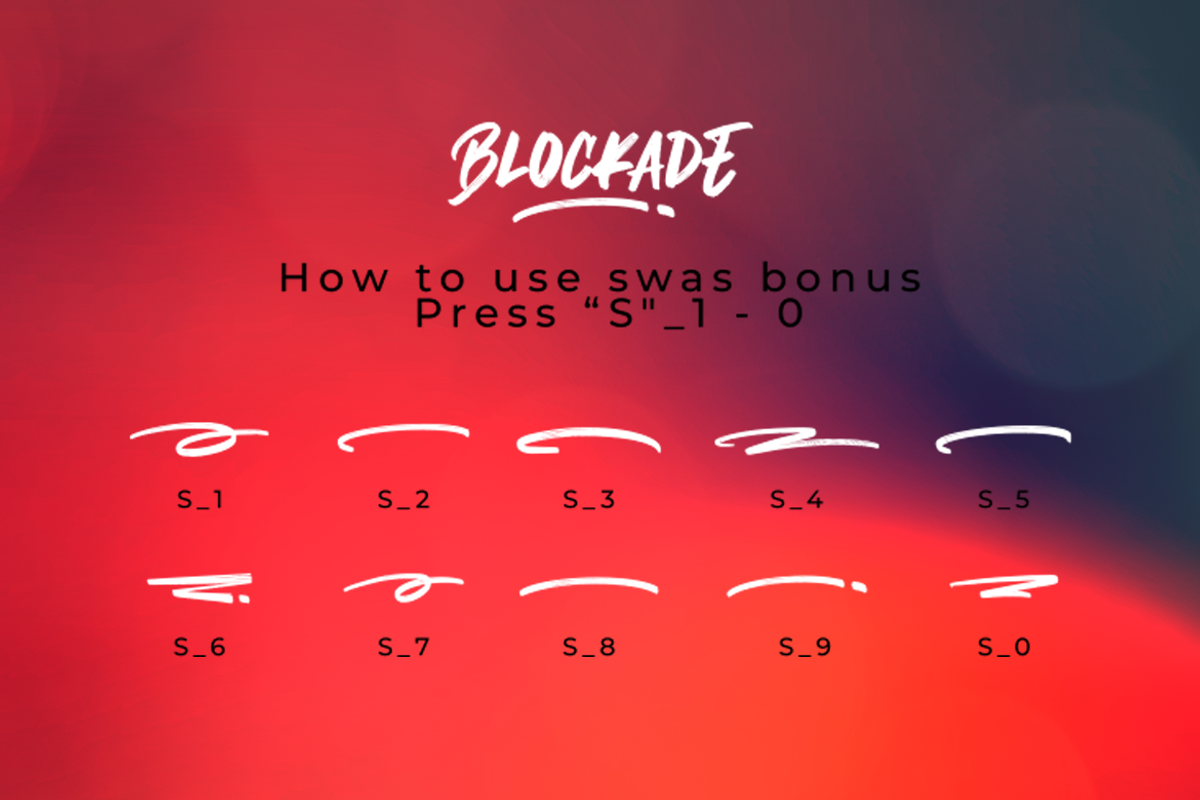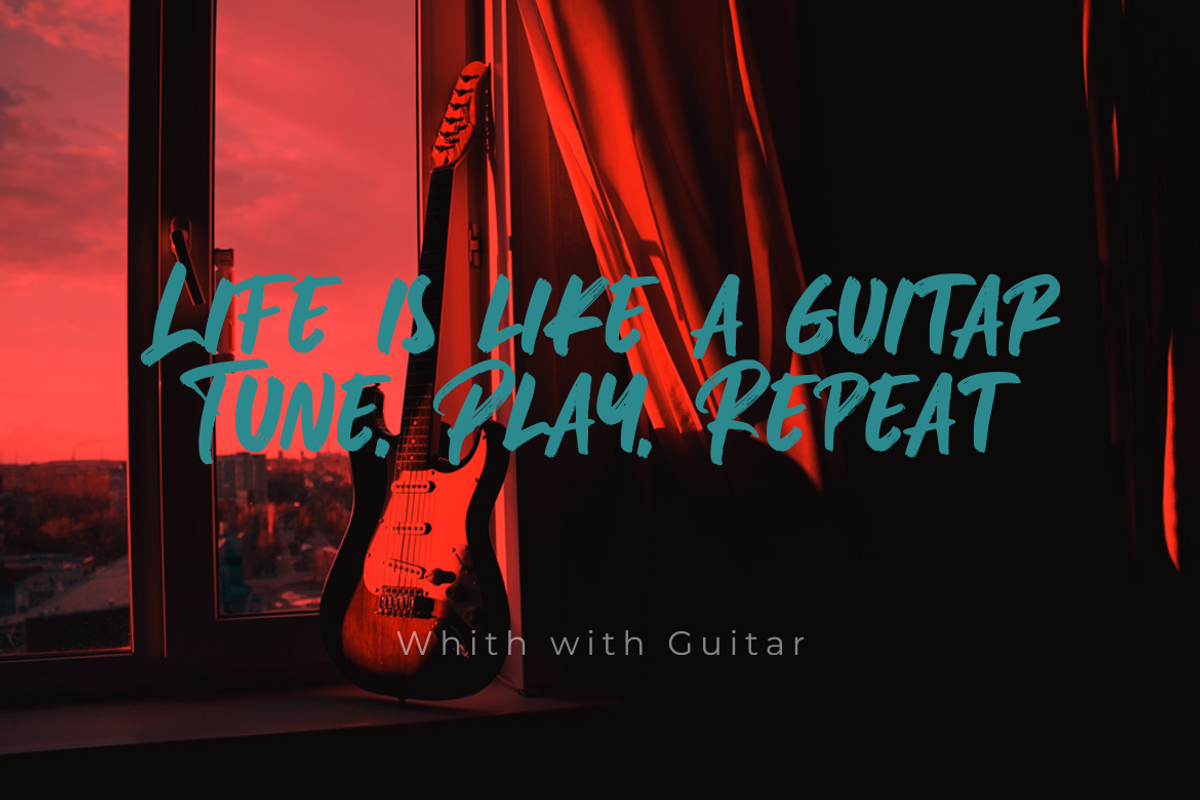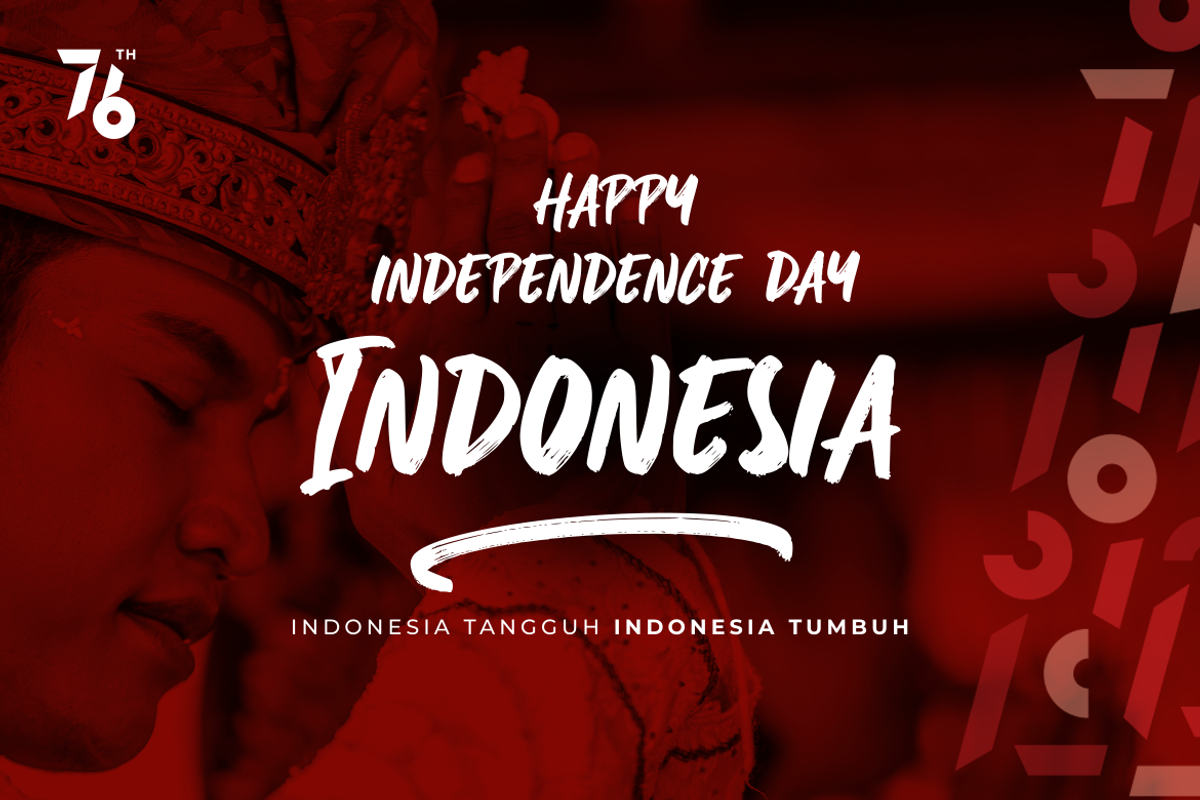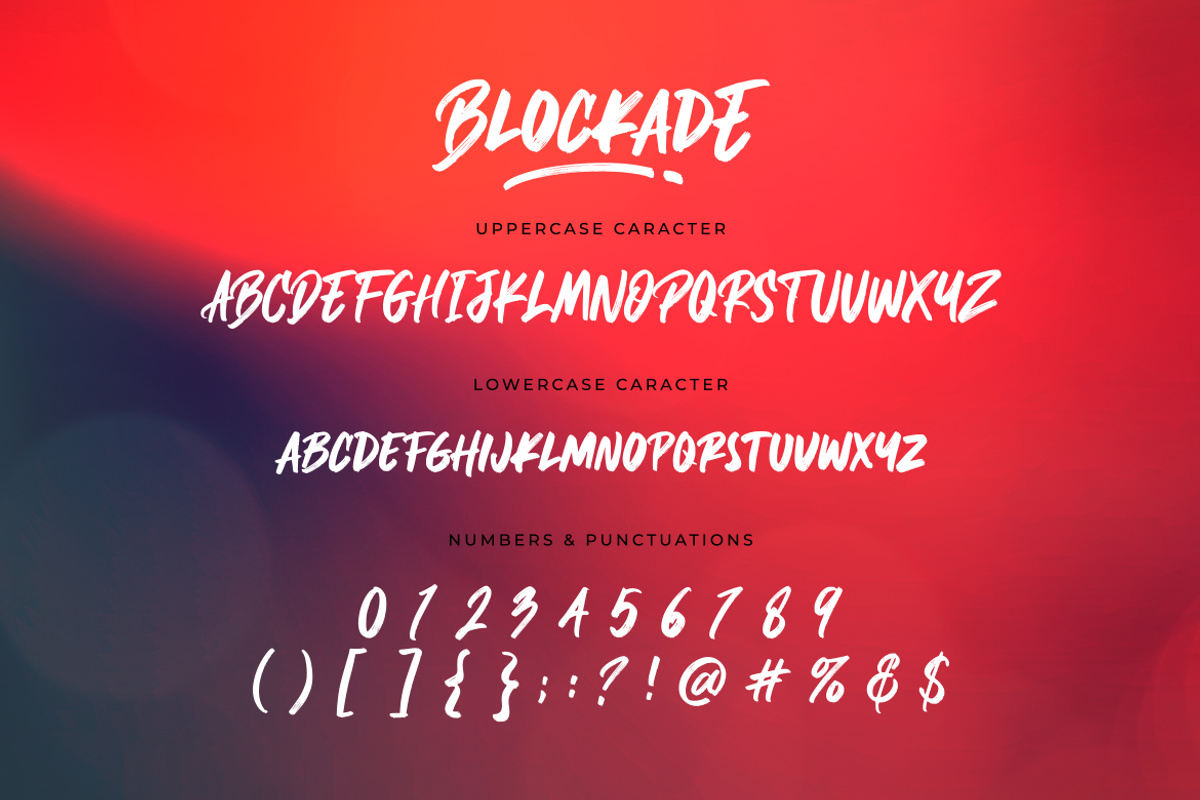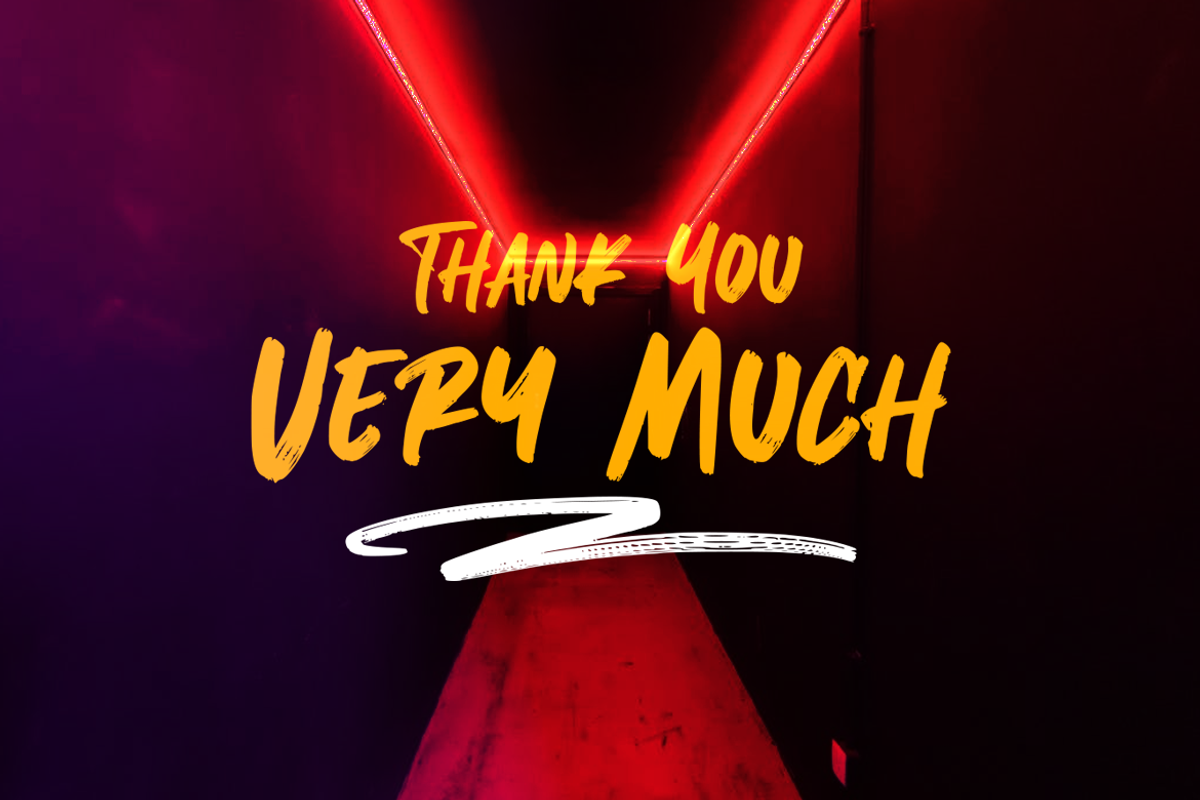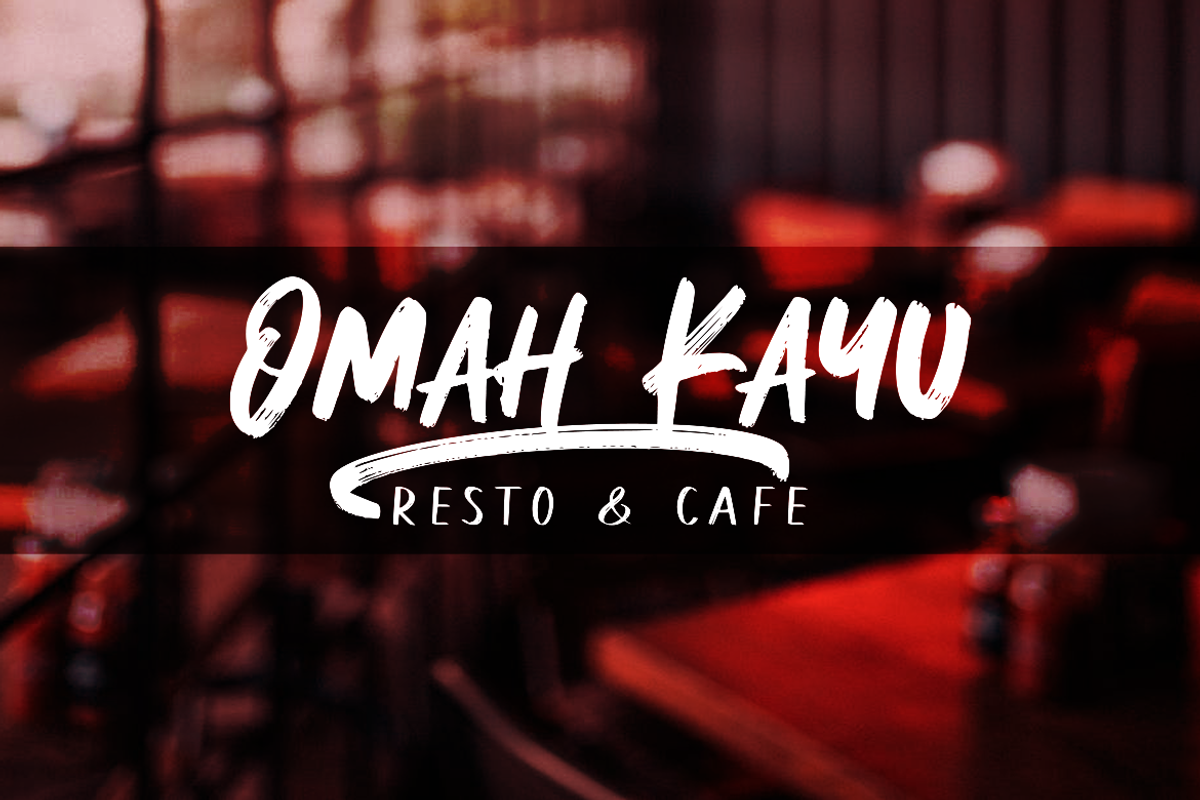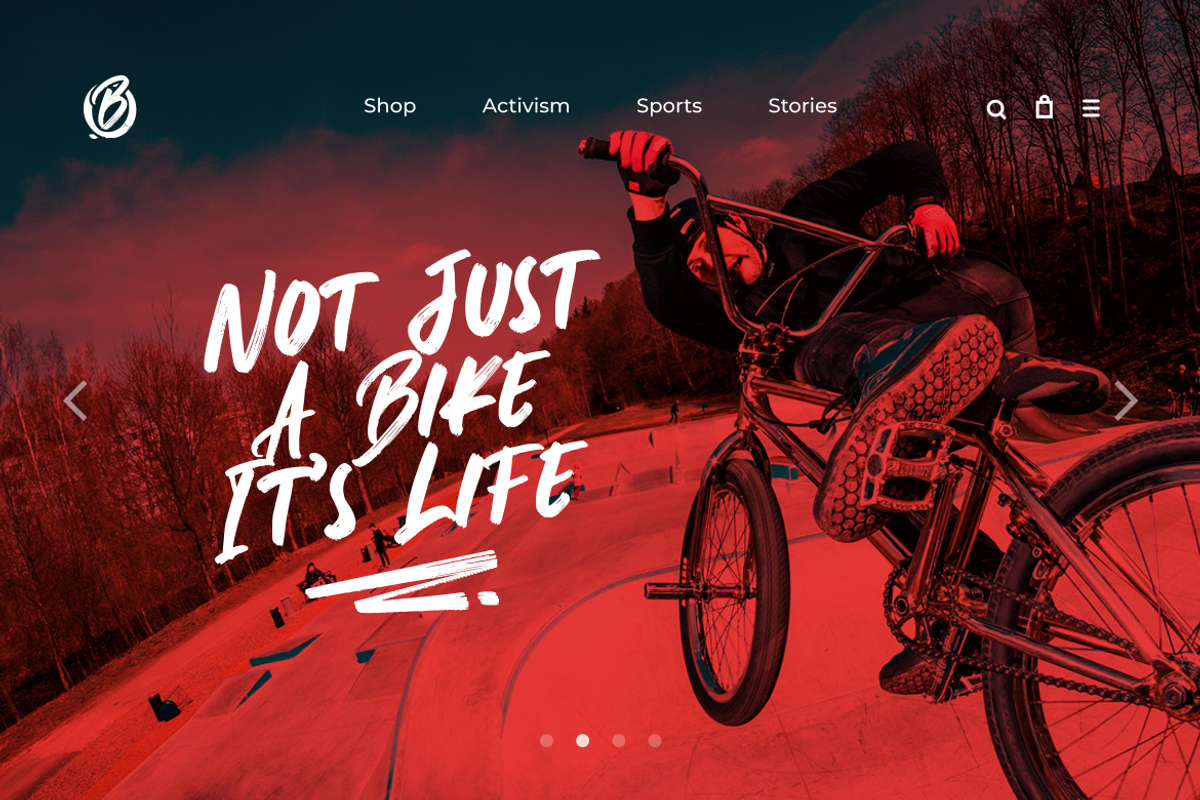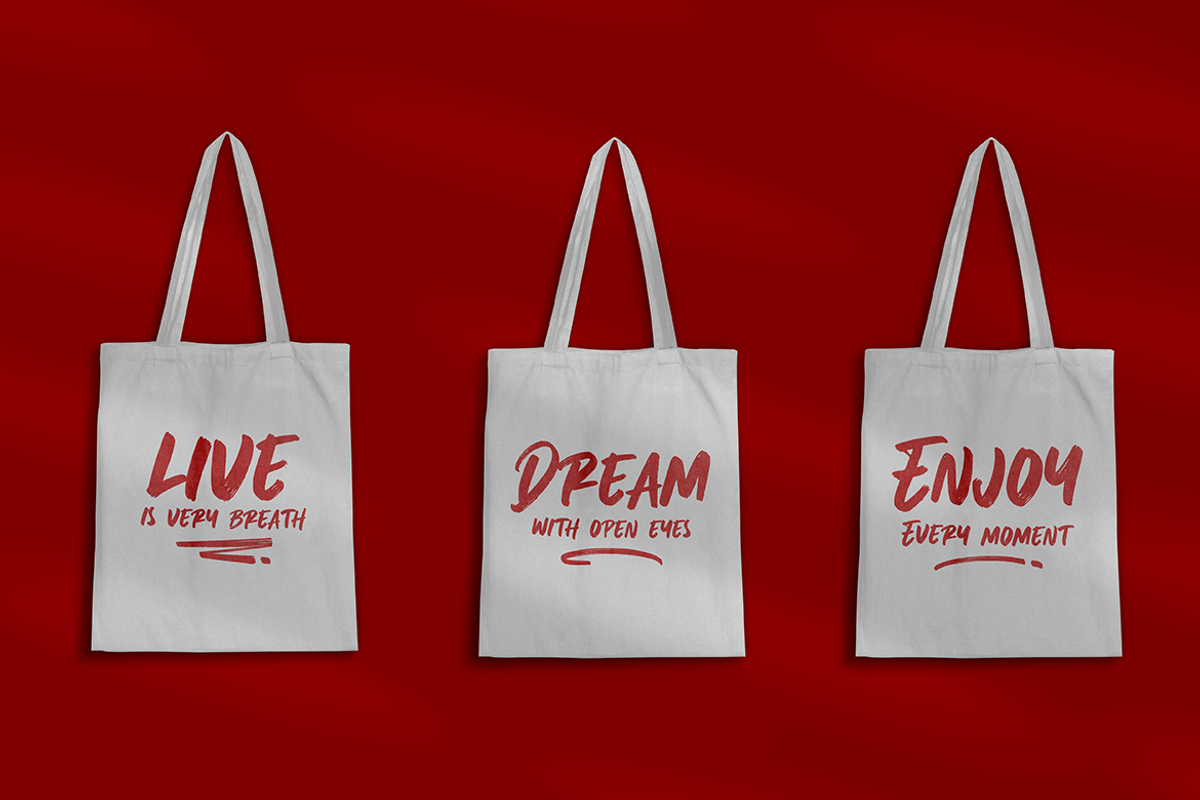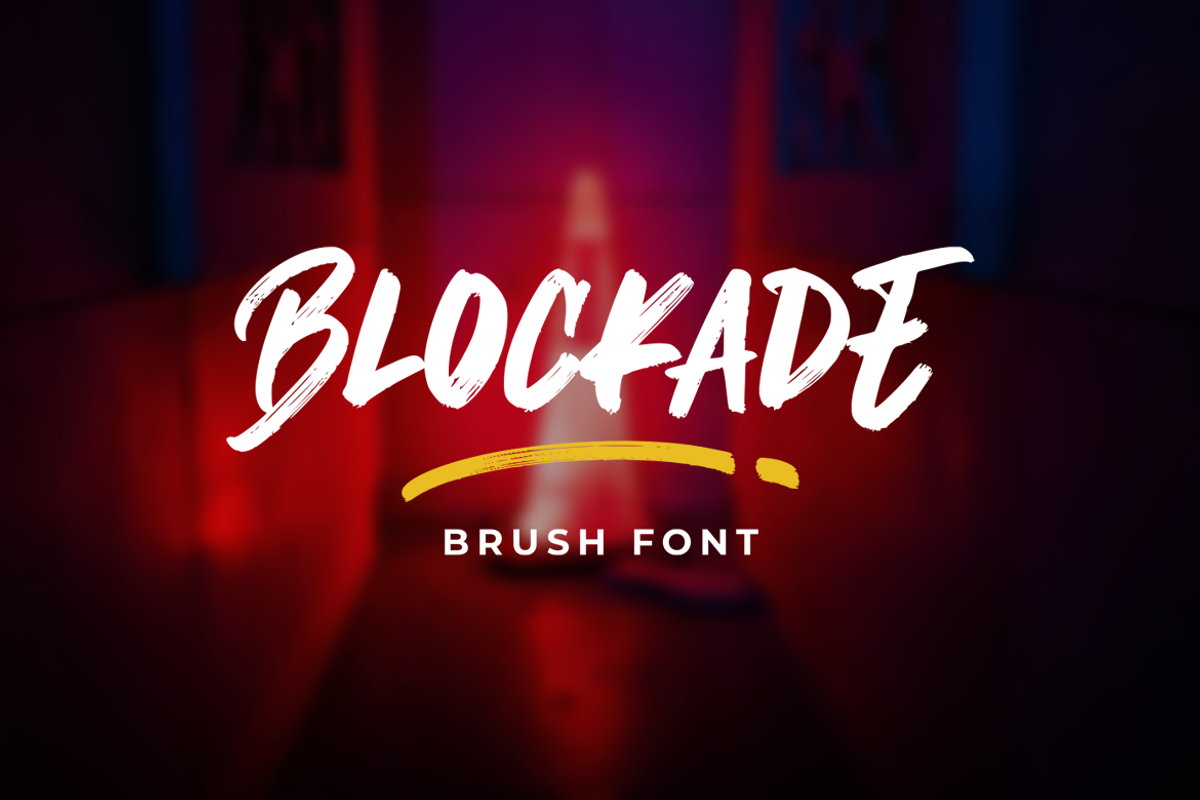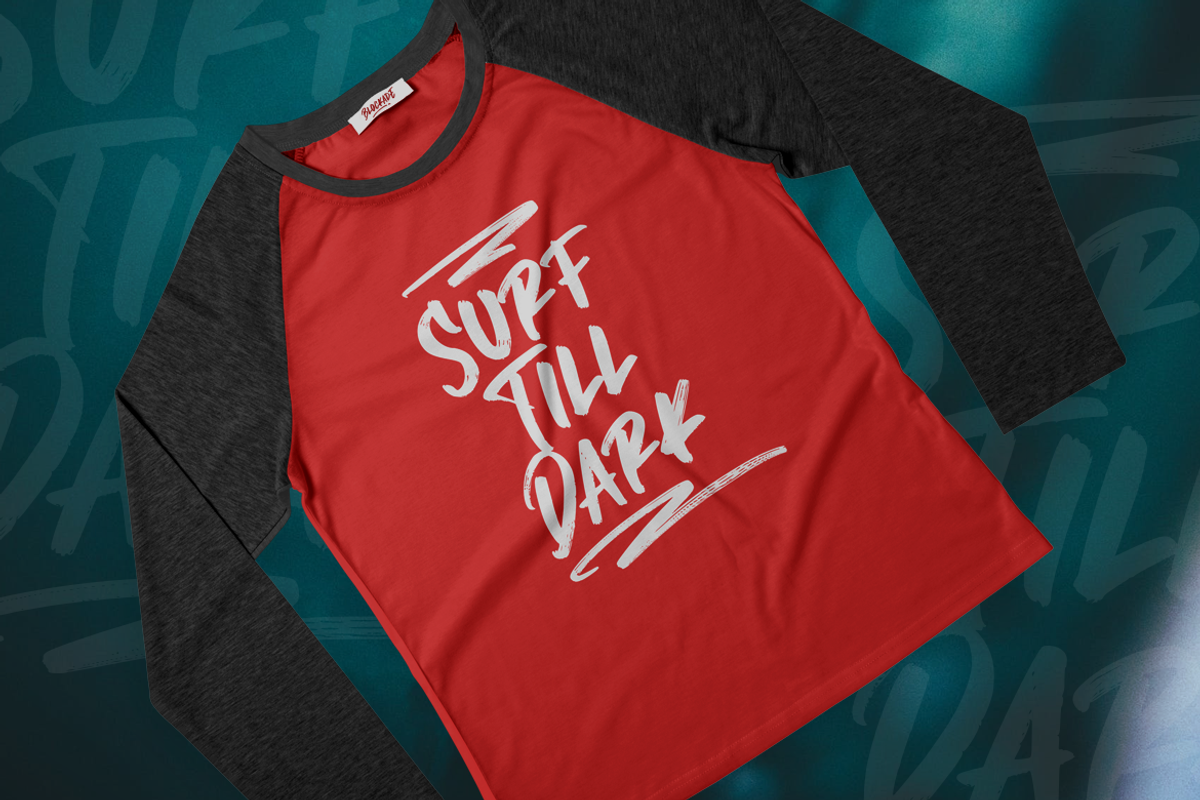
Blockade Brush Font
Blockade is our newest font brush. Blockade fonts are suitable for today's projects such as clothing, covers, watermarks, web design, posters, branding. Blockade also comes with an underscore sweep bonus which can be perfectly matched. Just do it with your own creativity, Blockade is an easy to use font, will make your project easier.